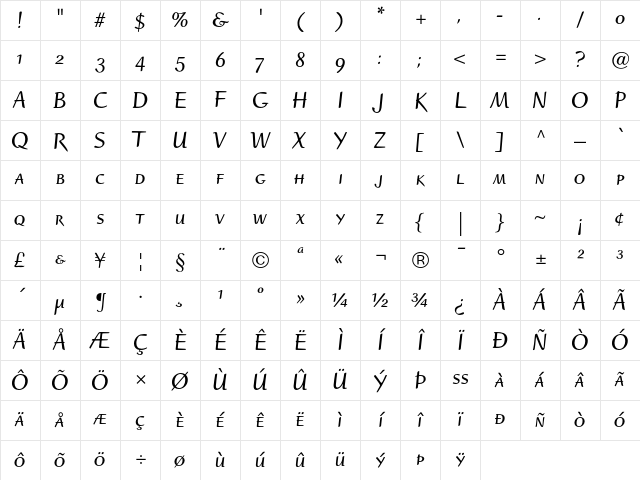
Ruzicka Freehand LH Bold Small Caps & Oldstyle Figures
Style: Bold Small Caps & Oldstyle Figures
Design Context for Ruzicka Freehand LH
Ruzicka Freehand LH flows with the natural rhythm of handwritten lettering, making it ideal for designs that call for warmth and personal expression. Its bold stroke weight gives it real presence on the page.